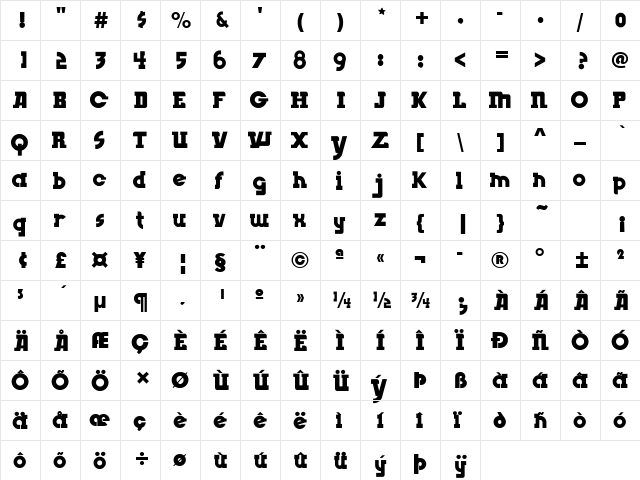
INSIGHT ISSUE Regular
| Designer | Galdino Otten |
Design Context for INSIGHT ISSUE Typeface
INSIGHT ISSUE is a composed and adaptable typeface that performs quietly and consistently across a wide range of design contexts.